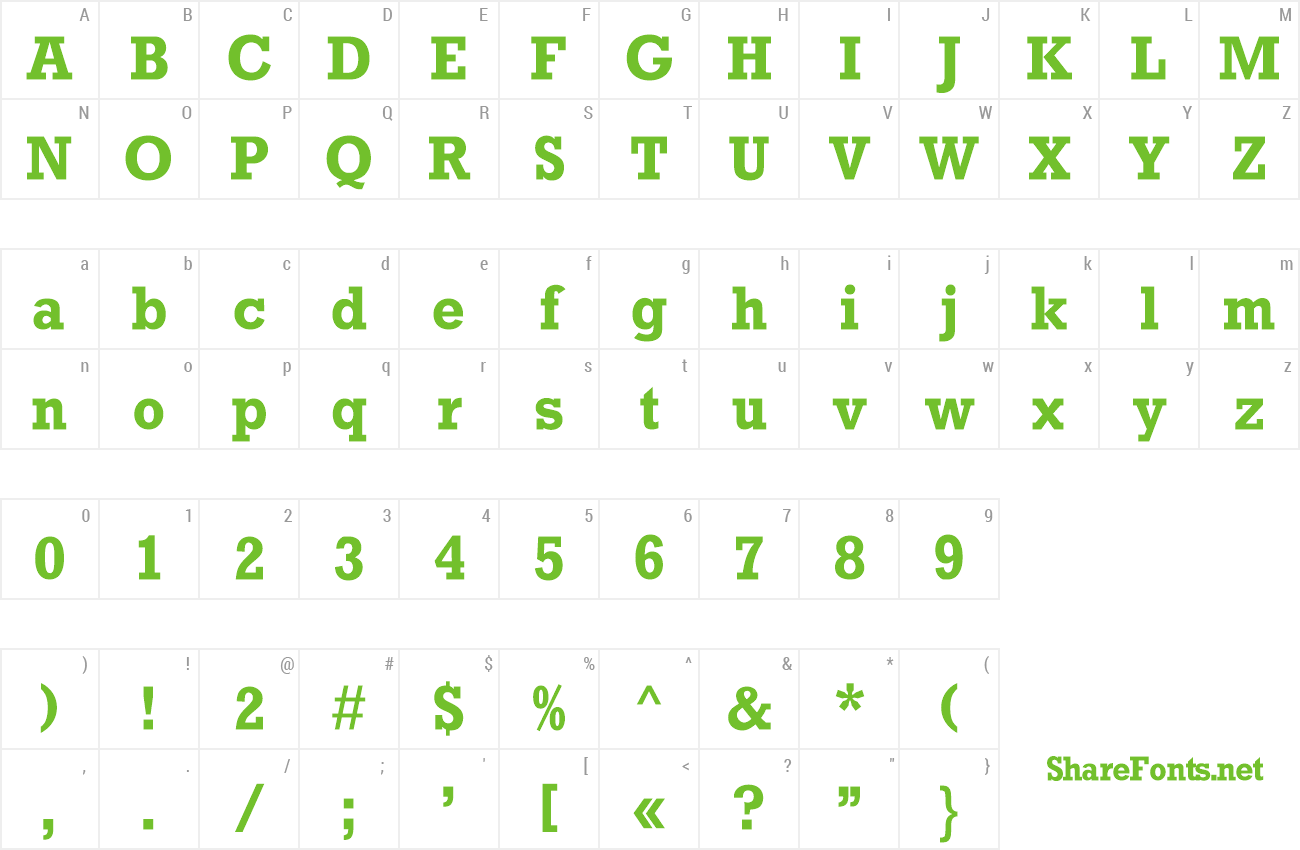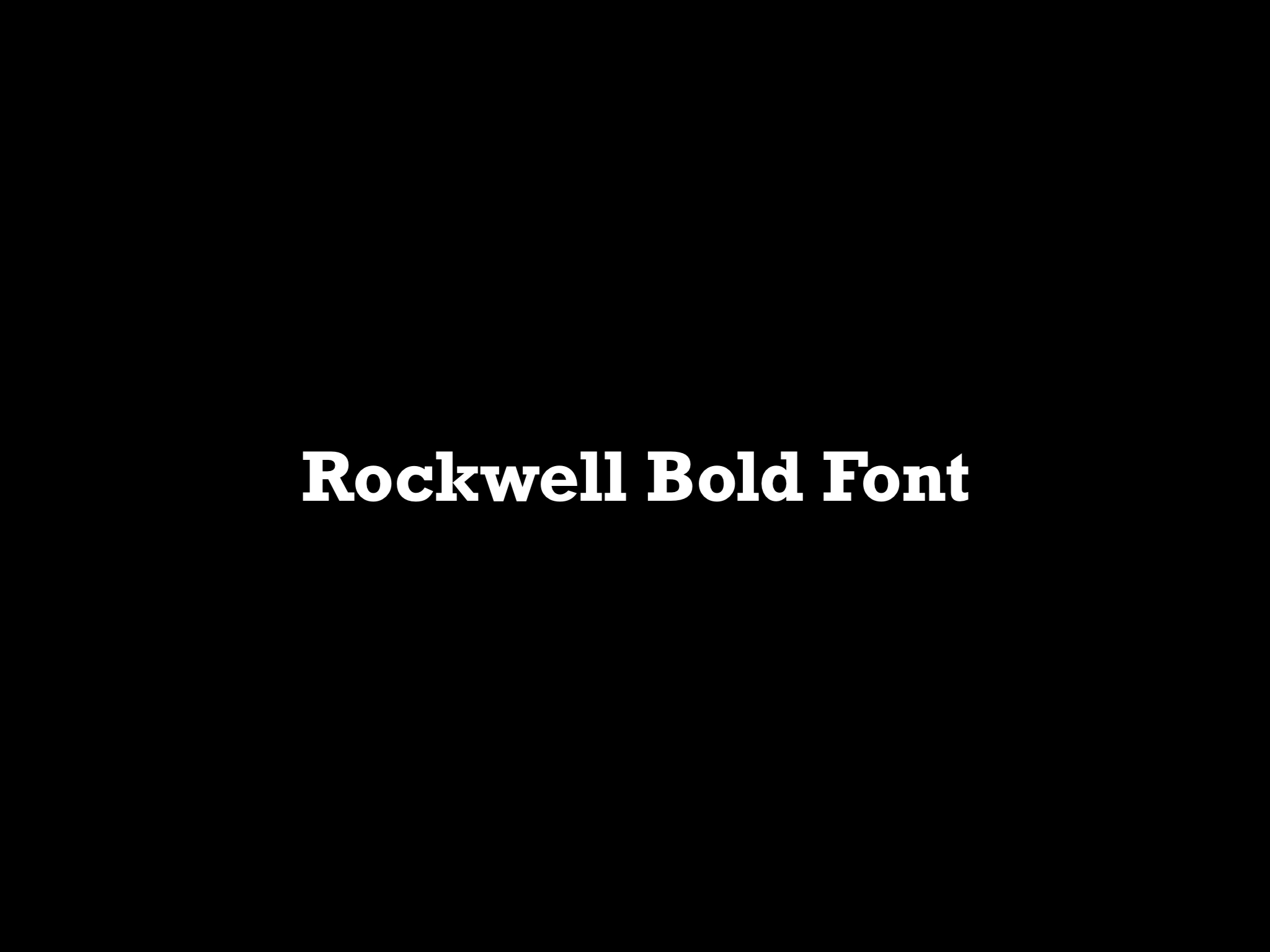
Font Rockwell Bold
Font Rockwell Bold - Bold, geometric slab serif with strong strokes. This font features bold, geometric letterforms with. Installable on pc, mac, linux, ios, and android platforms. Discover the free rockwell bold font at free font download !